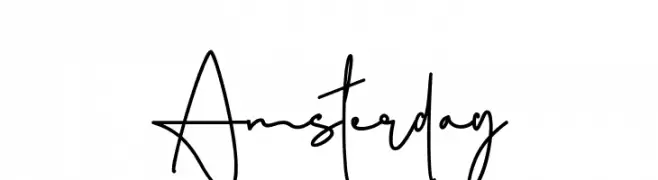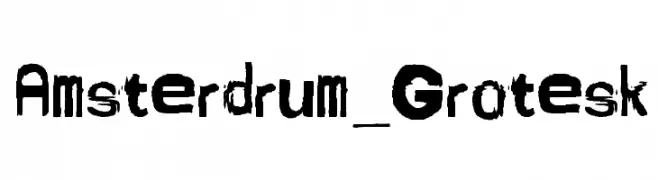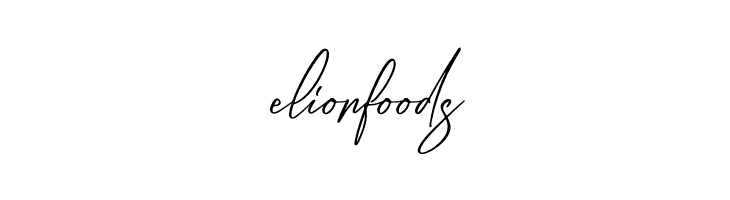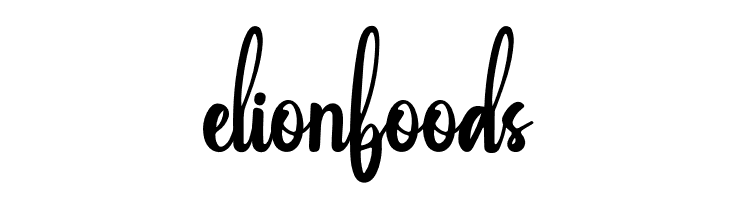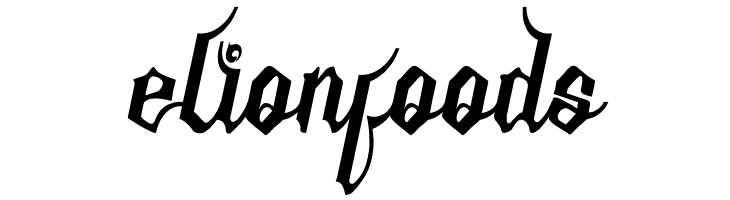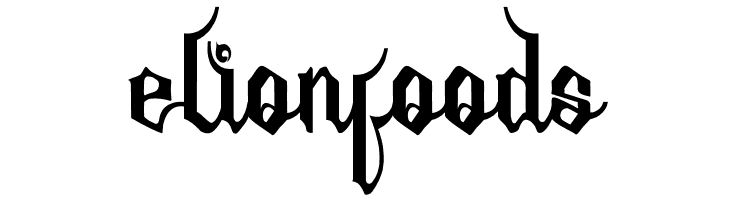
A casual, handwritten font with playful, flowing strokes.
A bold, distressed font with a hand-drawn, chaotic style.
A bold, distressed font with a rough, textured appearance.
A lively handwritten font with fluid, dynamic strokes and elegant connections.
A lively, hand-drawn script font with tall, narrow letters and playful loops.
A playful, bold, and rounded font with a hand-drawn aesthetic.
A bold, gothic-style blackletter font with intricate detailing and sharp, angular lines.
An ornate, Gothic-inspired italic font with sharp, angular strokes.
An elegant, flowing script font with a natural handwritten style.
An elegant, flowing script font with interconnected, cursive letters.